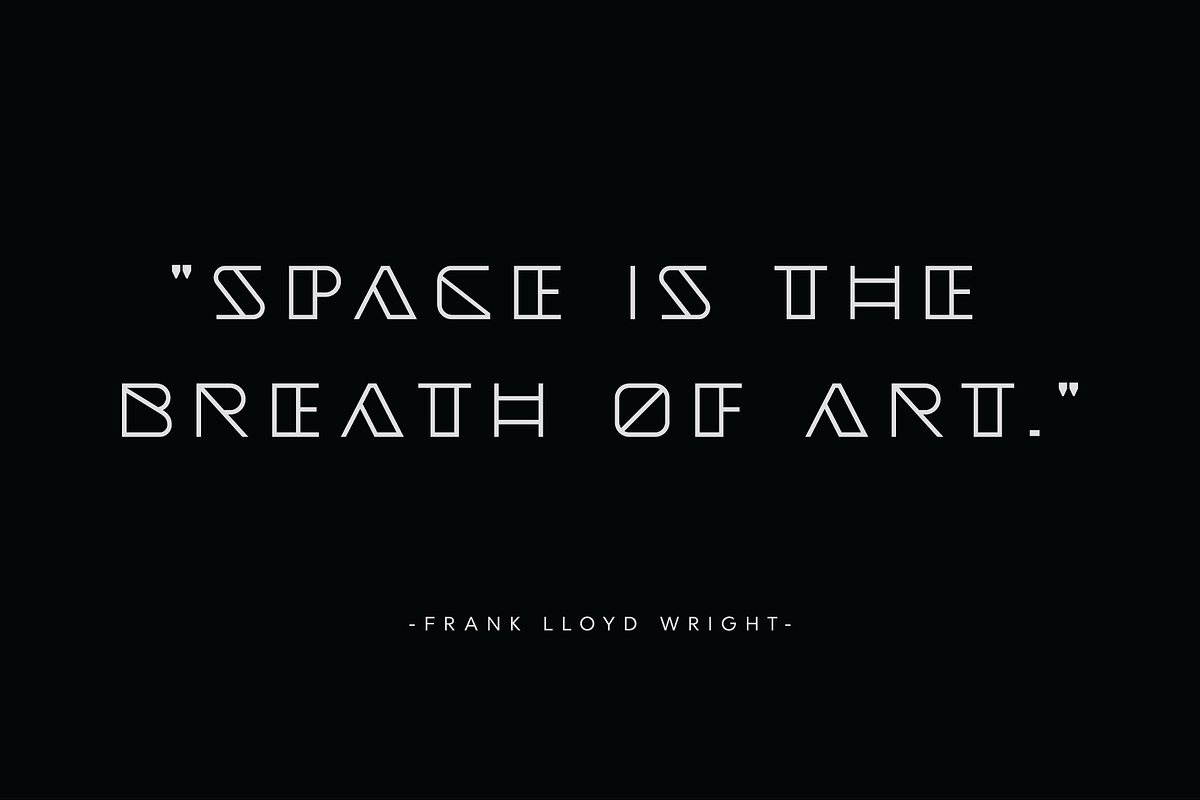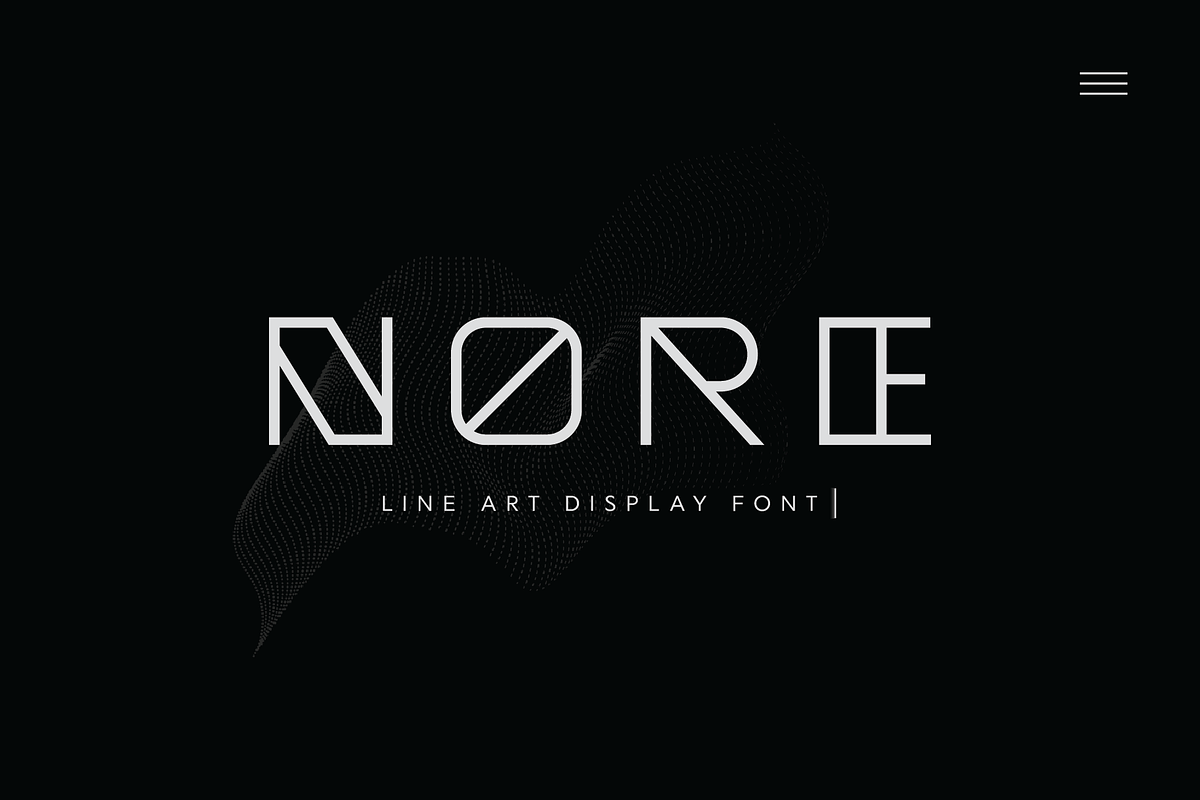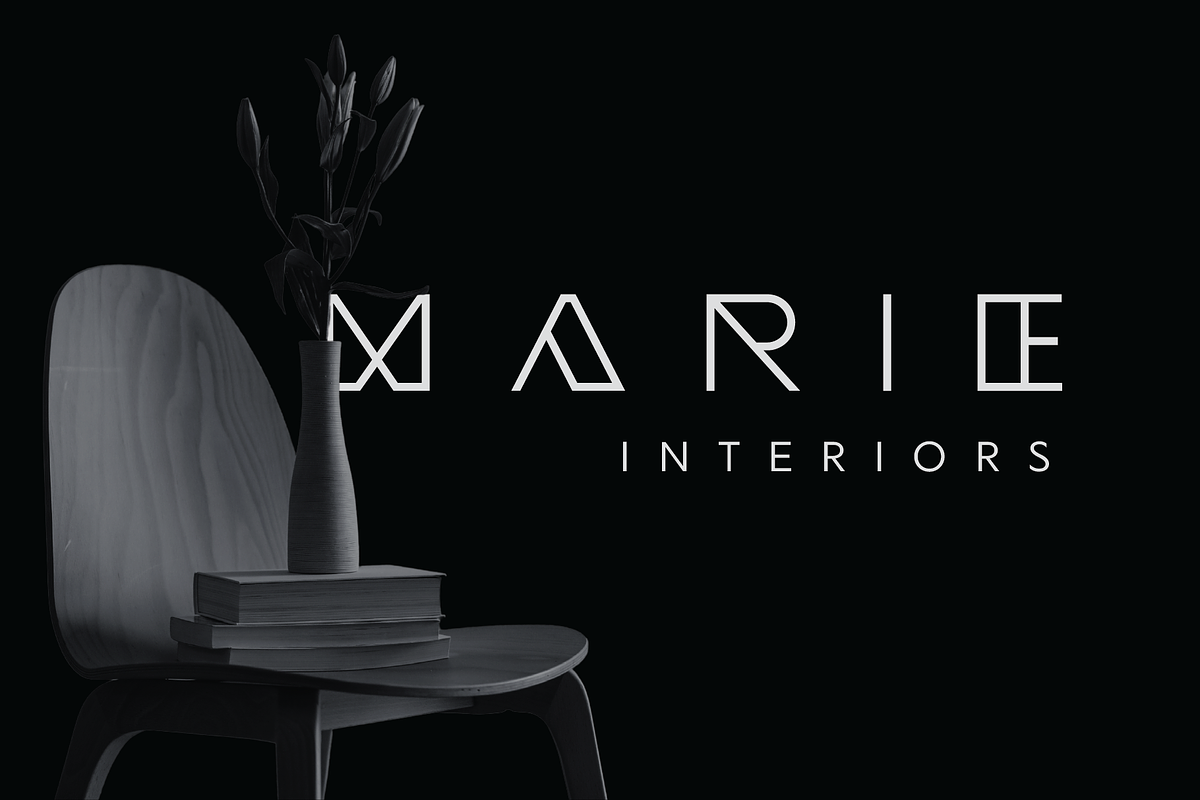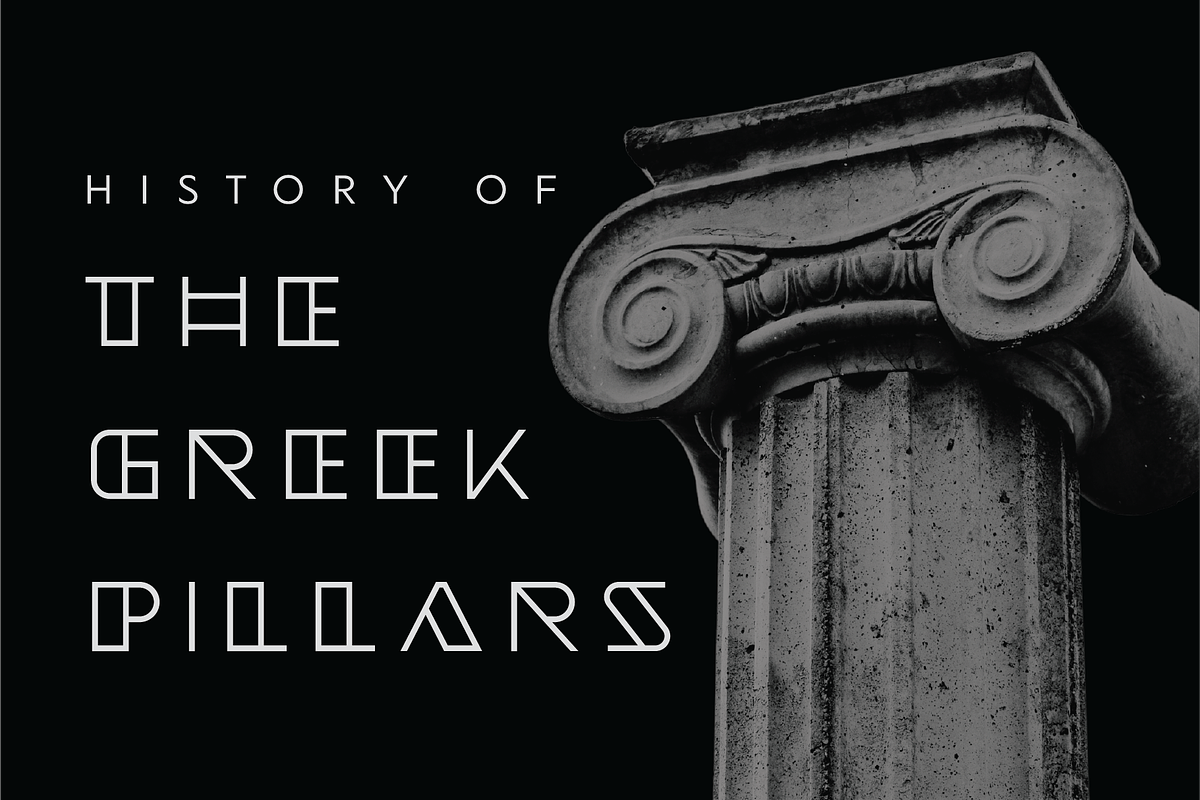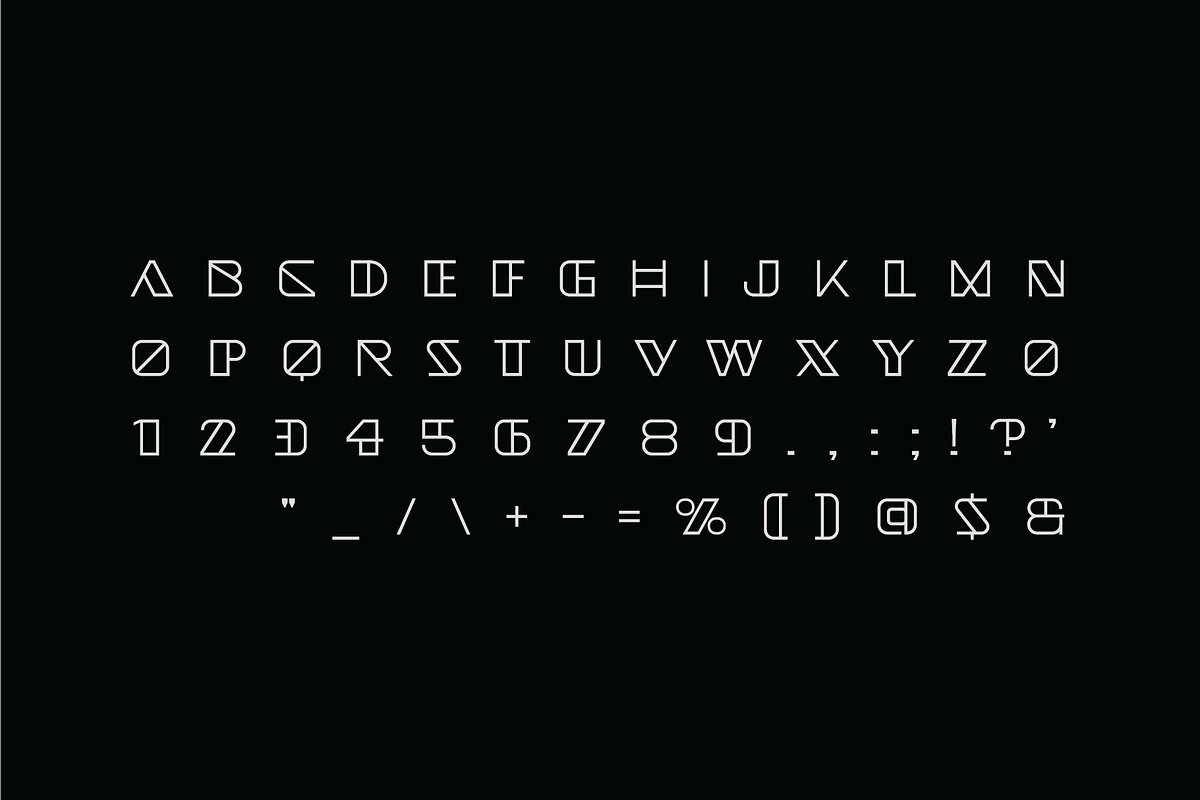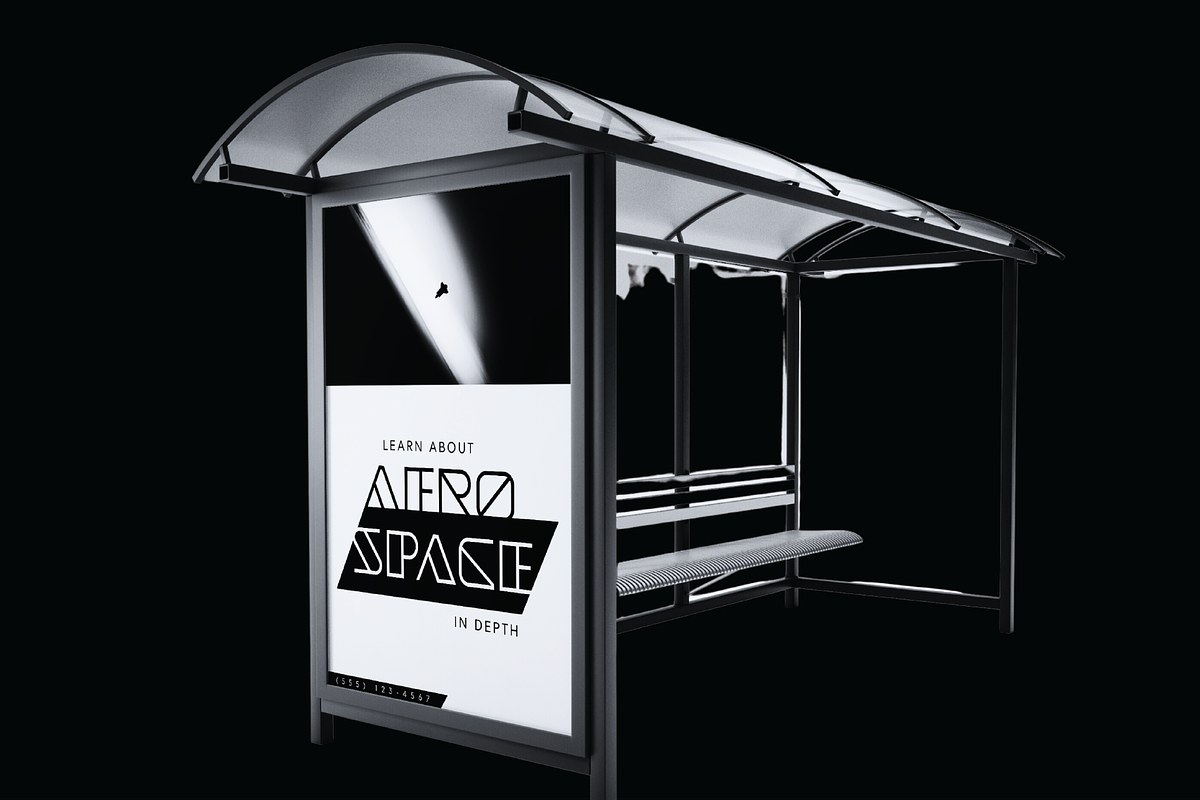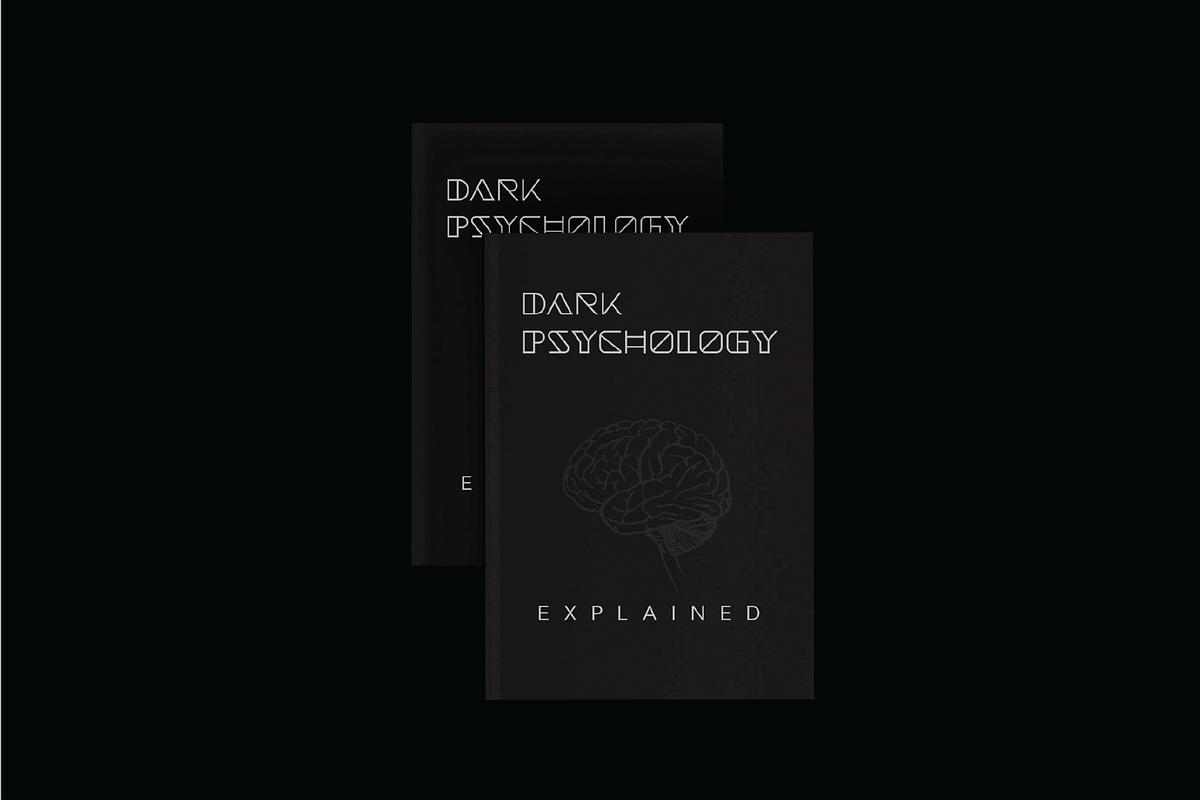
Nore Line Art Display Font
Nore is a stylish line art font known for its unique design. This clean font features thin lines, giving it an elegant and modern look. The Nore display font is suitable for headlines, posters, banners, logos, and branding materials. Give your design a sleek and sophisticated appearance with Nore display font.